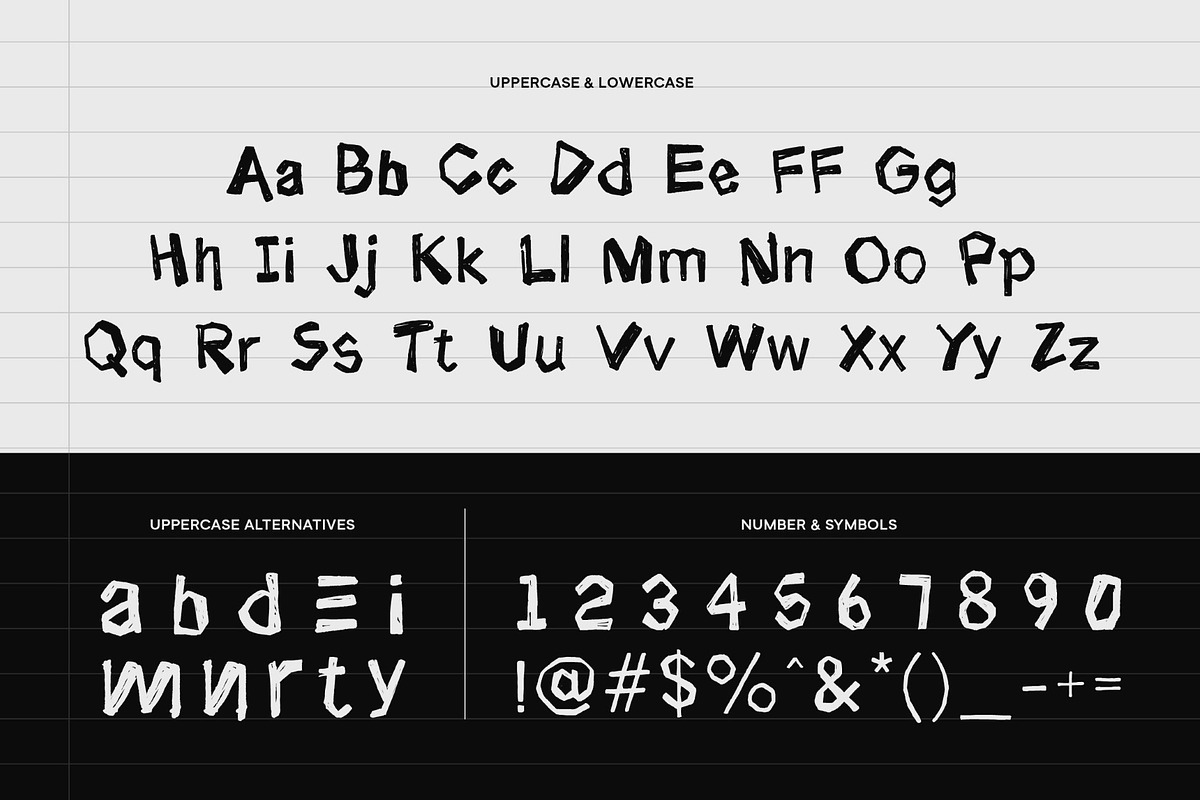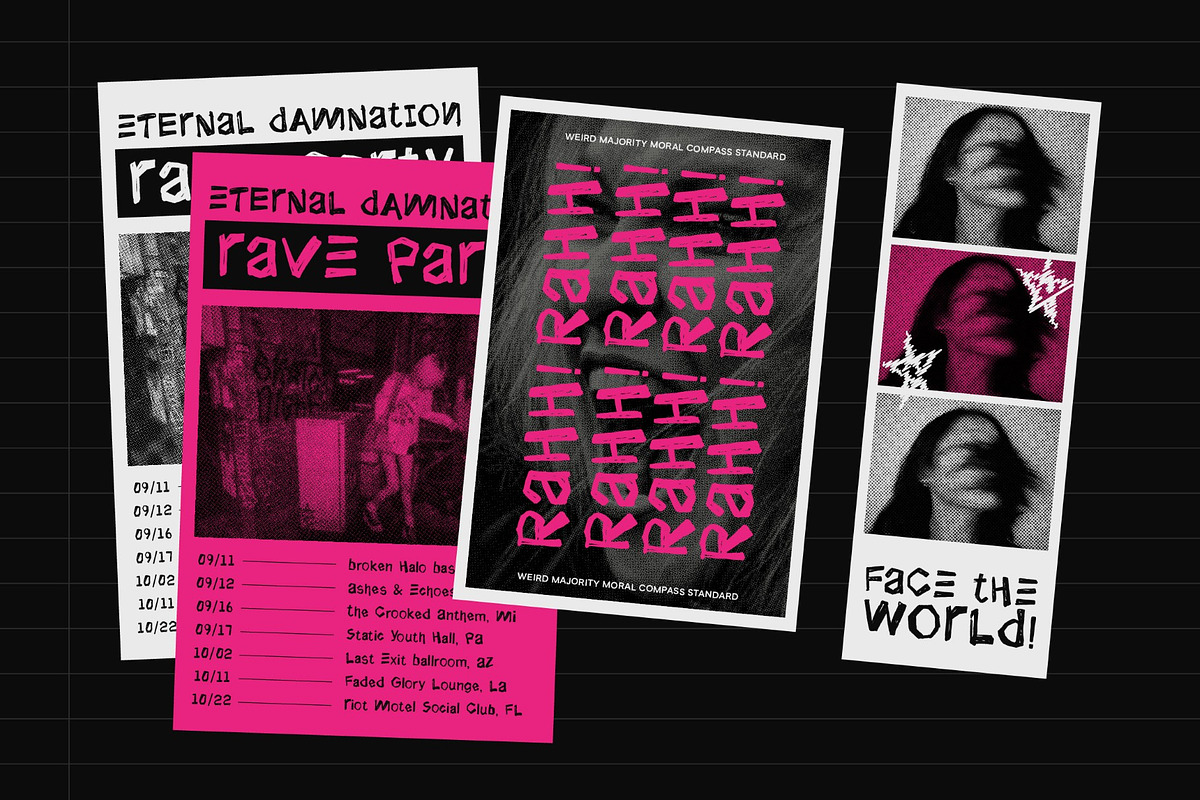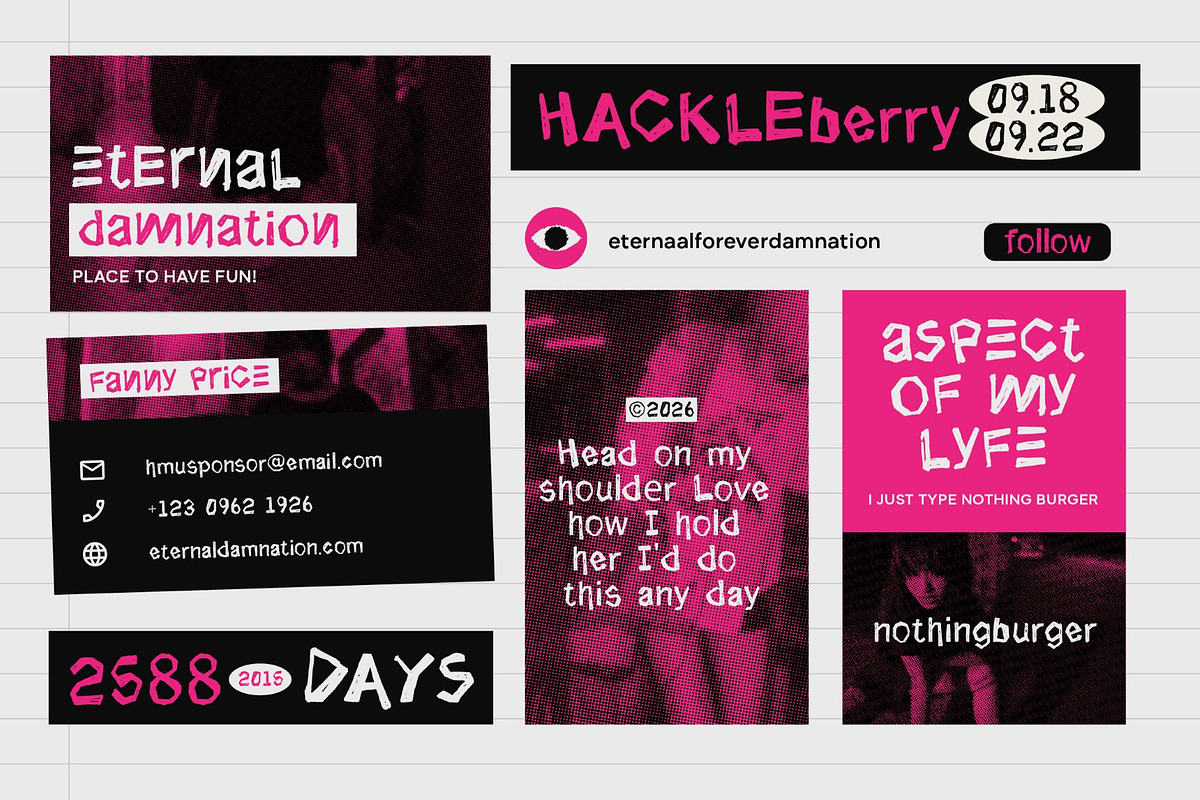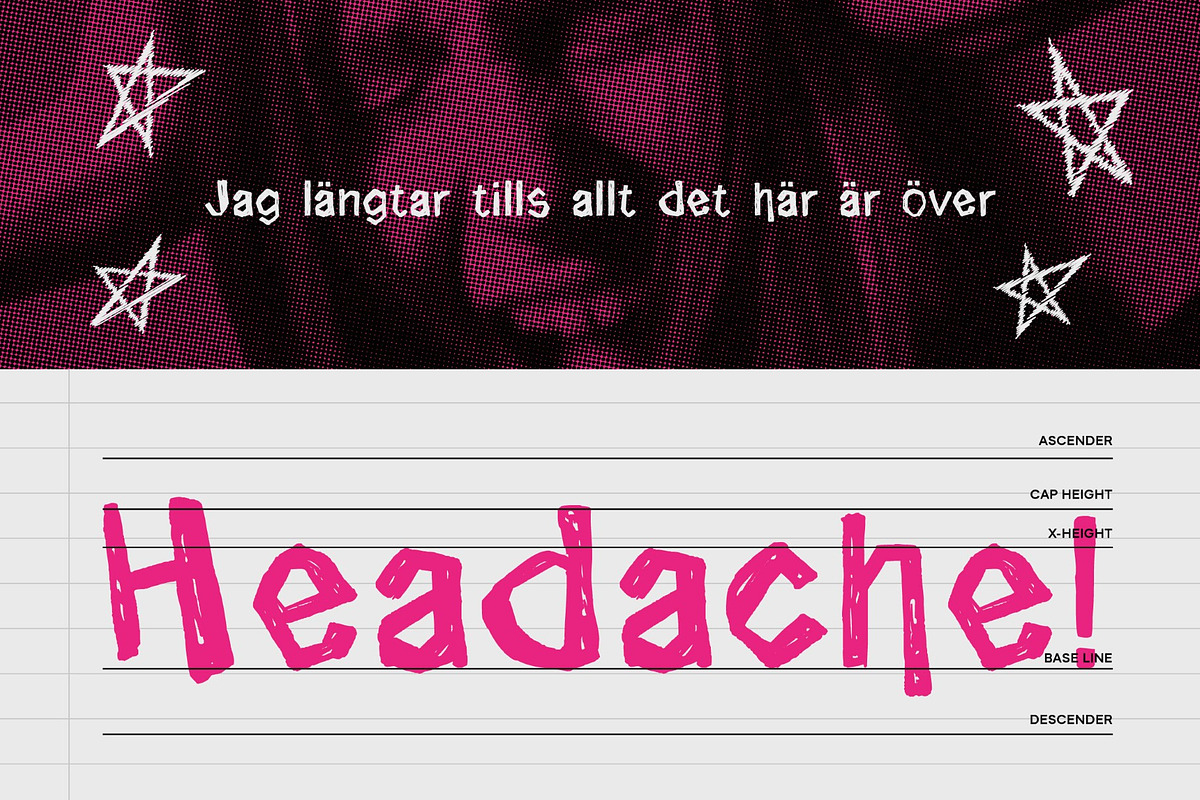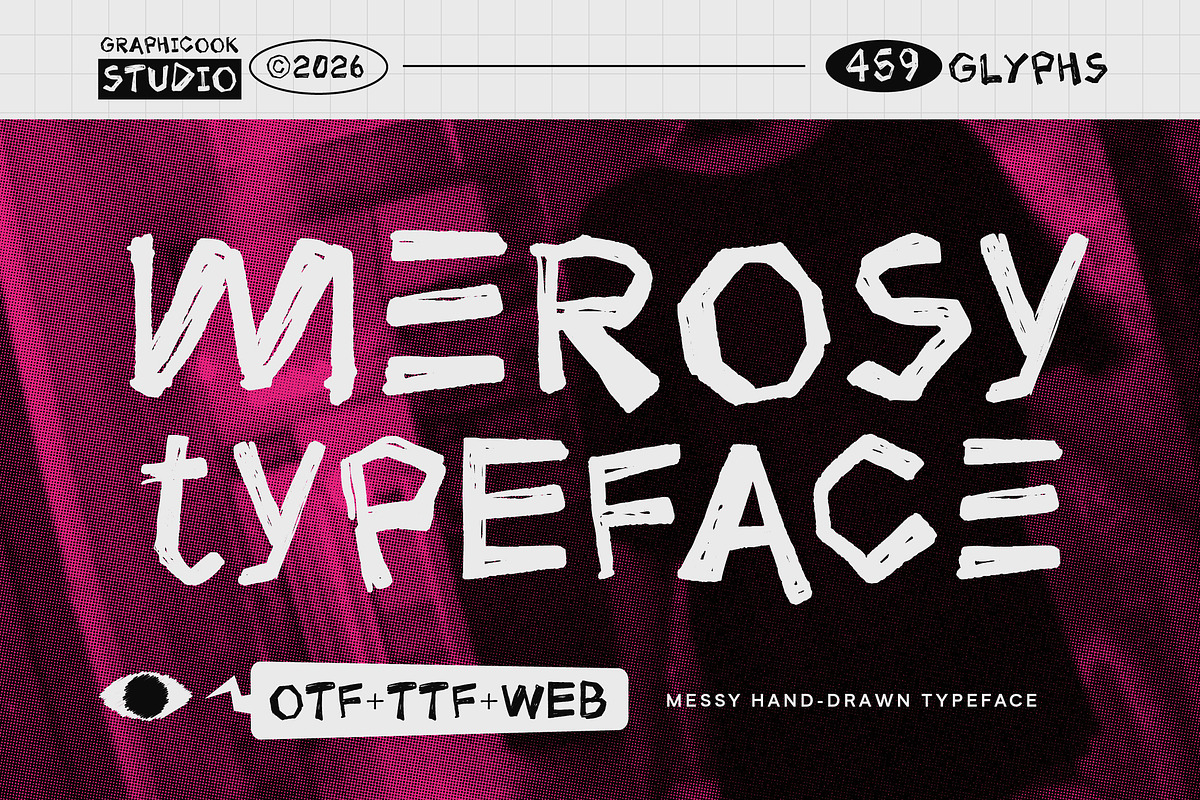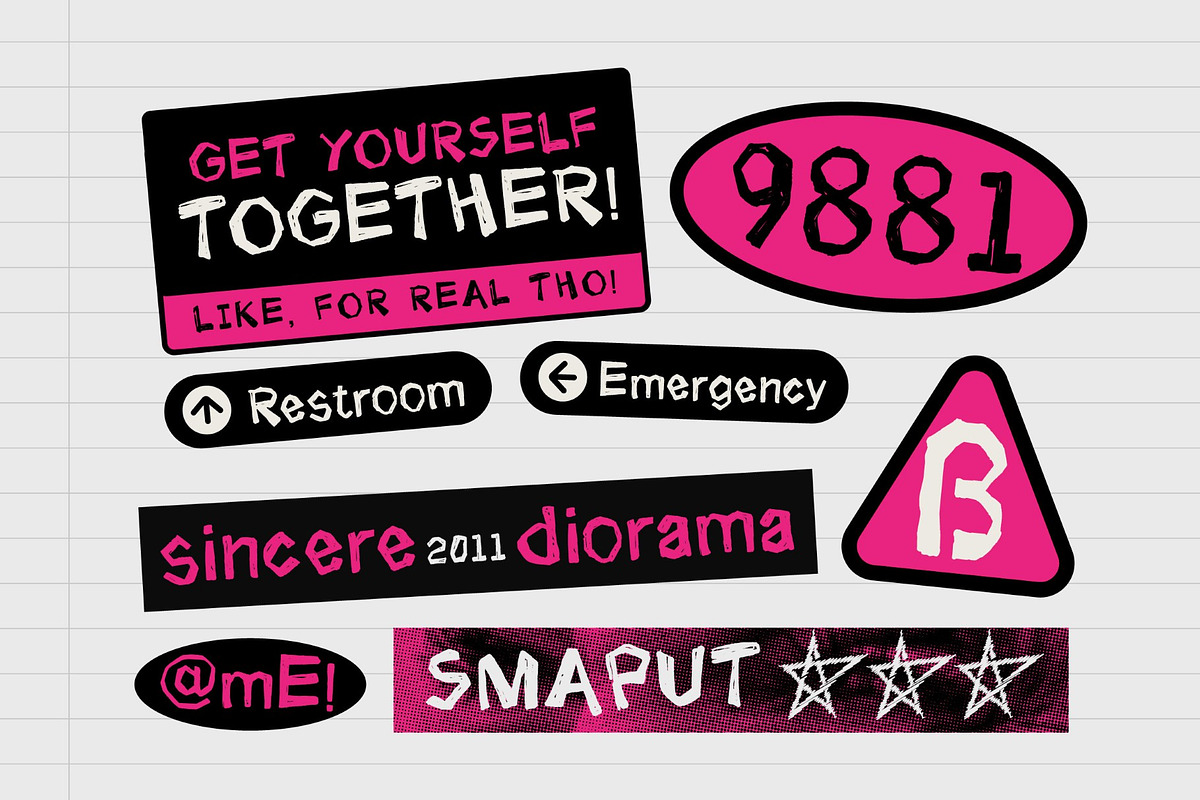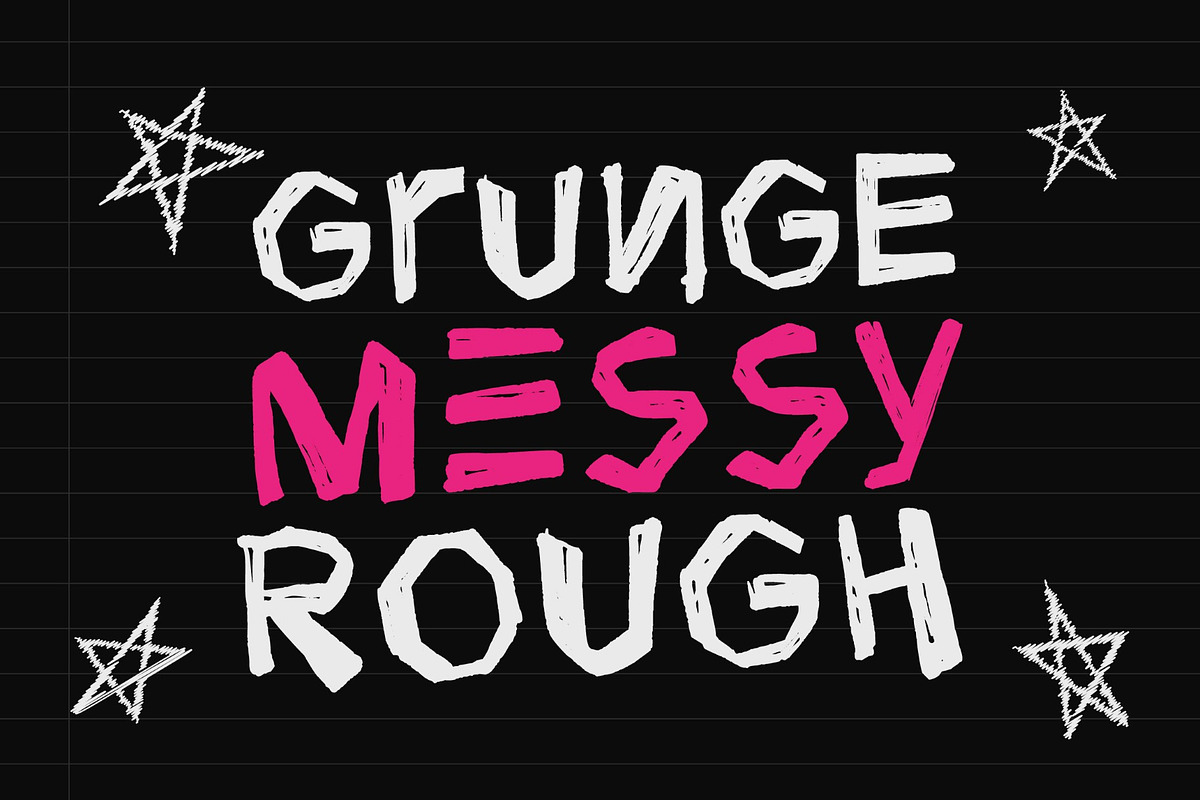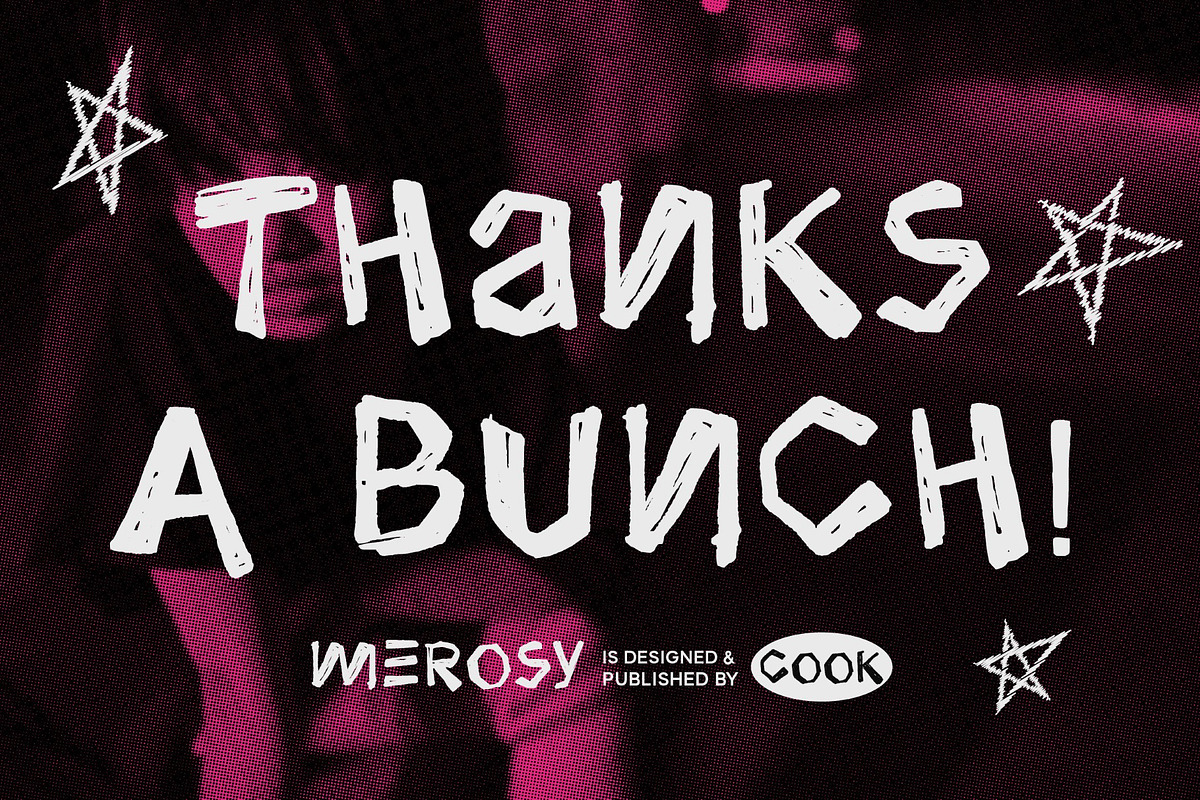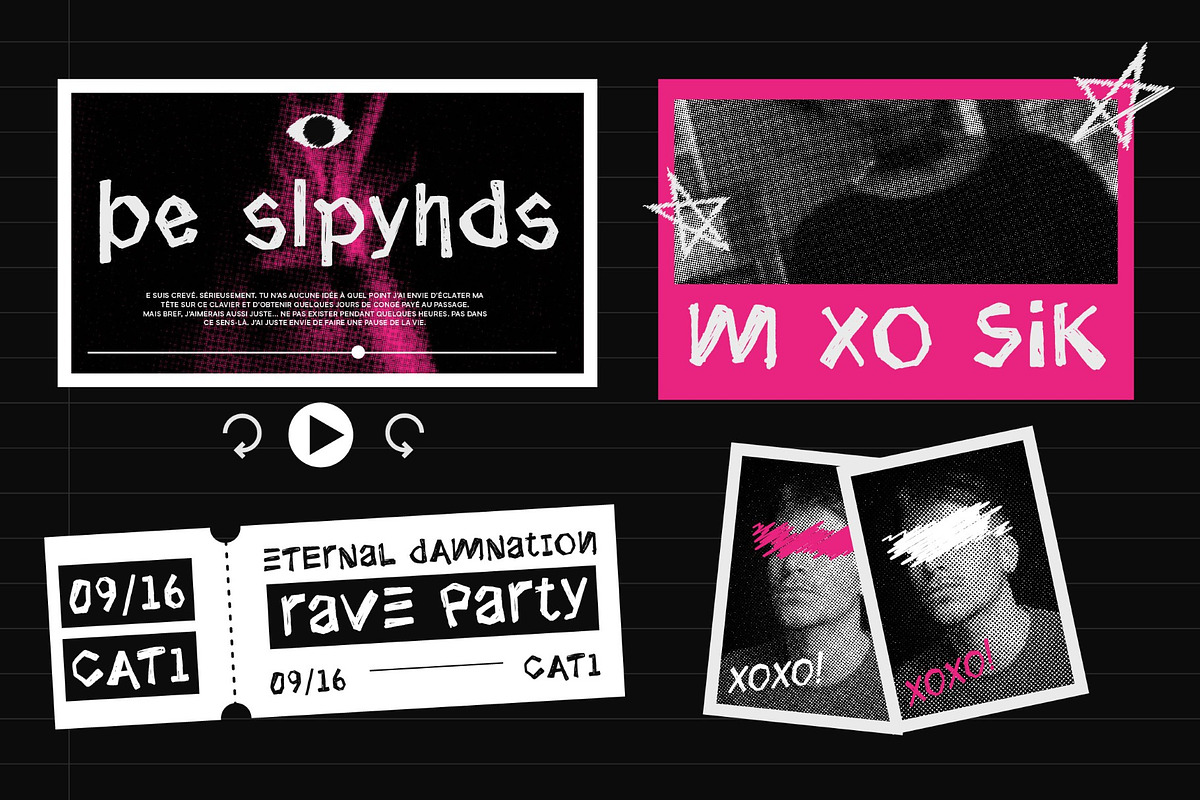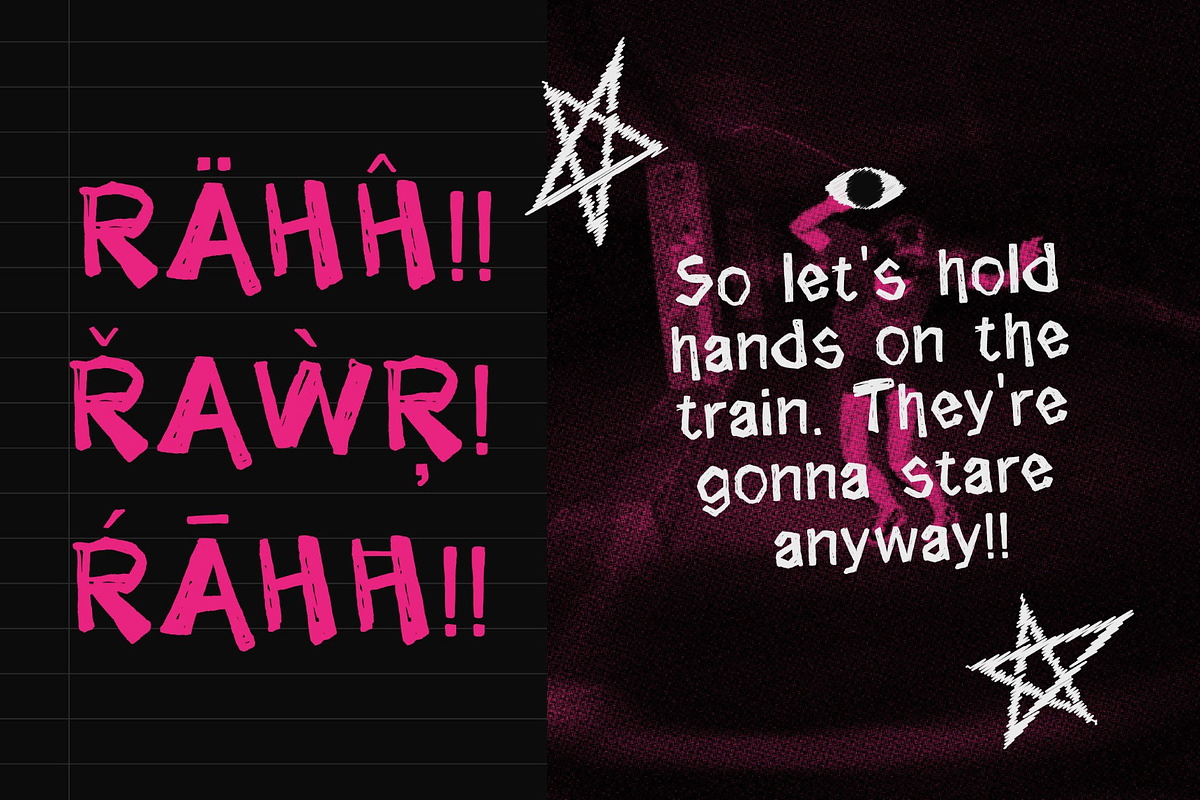
Merosy
Merosy is a messy hand-drawn typeface with a raw, spontaneous, and expressive personality. Inspired by quick marker strokes and imperfect handwritten lettering, it brings an authentic DIY feel to your designs. Its irregular shapes, rough edges, and sketchy details give every word a playful and rebellious character. Merosy works especially well when you want your typography to feel handmade, unconventional, and full of attitude.